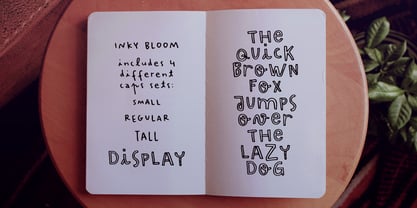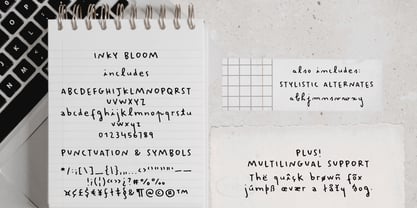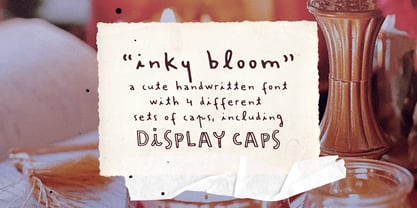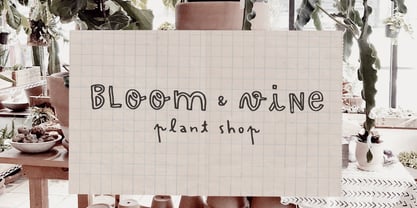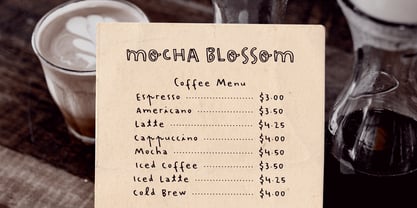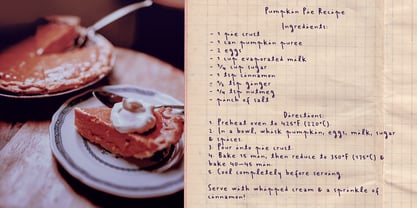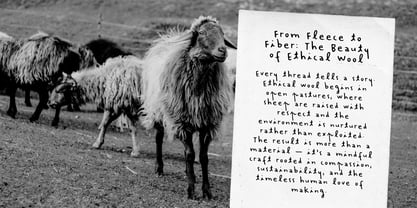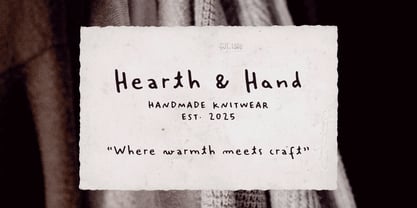
Inky Bloom
by Ana's Fonts
The Inky Bloom Font Family was designed by Ana Parracho and published by Ana's Fonts. Inky Bloom contains 4 styles and family package options.
Bring playful warmth and polished charm to your designs with Inky Bloom, a delightful handcrafted marker-style typeface. Inky Bloom features four distinct sets of caps: Regular, Small (caps at the height of lowercase letters), Tall, and Display (a bold hand-drawn font, perfect for impactful designs). It also includes stylistic alternates, enhancing the authentic handmade feel. Use Inky Bloom across a variety of creative projects where you want to infuse handwriting personality, including: branding and logos, social media graphics and quotes, packaging, labels and product tags, posters, flyers and editorial headings, as well as stationery, invitations, and greeting card design. Add a playful, handmade touch to your next project with Inky Bloom.